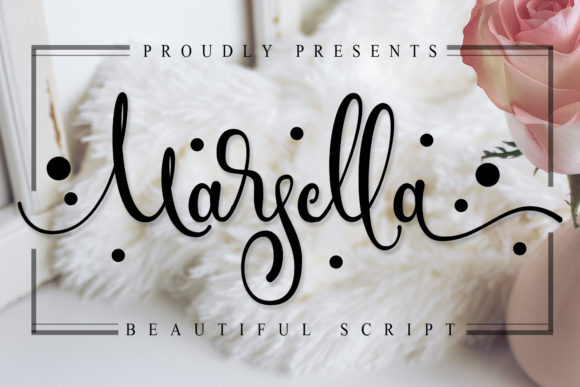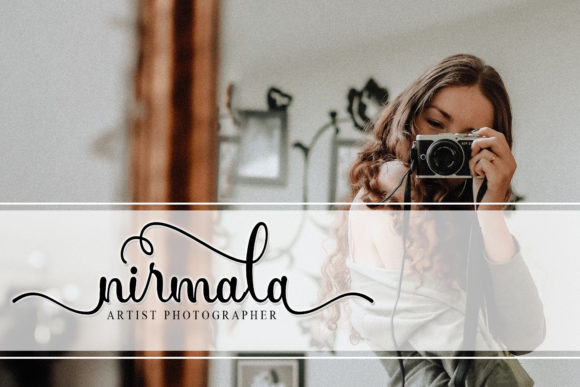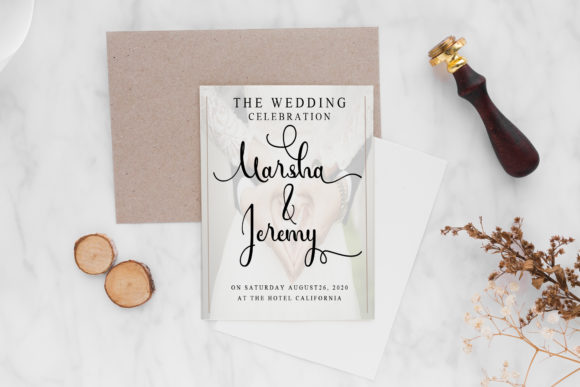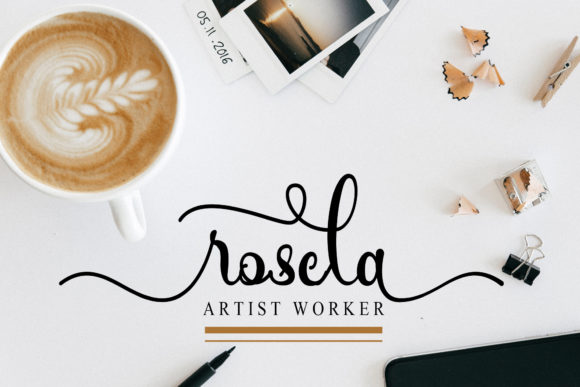
Marsella Font: Elegant Handwritten Script for Wedding & Logo Design
About the Marsella Font
Explore the possibilities with Marsella Font, a font that offers both beauty and functionality. Marsella is a magical handwritten font carefully created with a touch of elegance. It features gorgeous swashes and ligatures that make this script incredibly versatile. Whether you’re looking for fonts for Instagram or calligraphy scripts for DIY projects, Marsella will turn any creative idea into a true piece of art!
Marsella’s elegant yet slightly playful personality makes it ideal for branding projects requiring a touch of sophistication, particularly logos, short headlines, and invitations. It also works well on packaging for high-end products or boutique brands. However, its script nature and swashes make it less suitable for body text or UI elements where readability is paramount. Avoid using it for large blocks of text or situations demanding high legibility.
Pairing Marsella effectively requires considering its inherent flourish. A clean sans-serif like Montserrat or a geometric sans-serif like Futura would provide a strong contrast and enhance readability when used alongside Marsella in a logo or headline/body copy combination. For a more luxurious feel, consider pairing it with a classic serif like Garamond or a more modern serif like Playfair Display.
The overall effect is a balance between refined script and modern clarity. Consider the context; its inherent elegance works best with sophisticated projects, but its playful swashes allow for some flexibility in application.
Marsella Font Usage Examples
Marsella Font Example